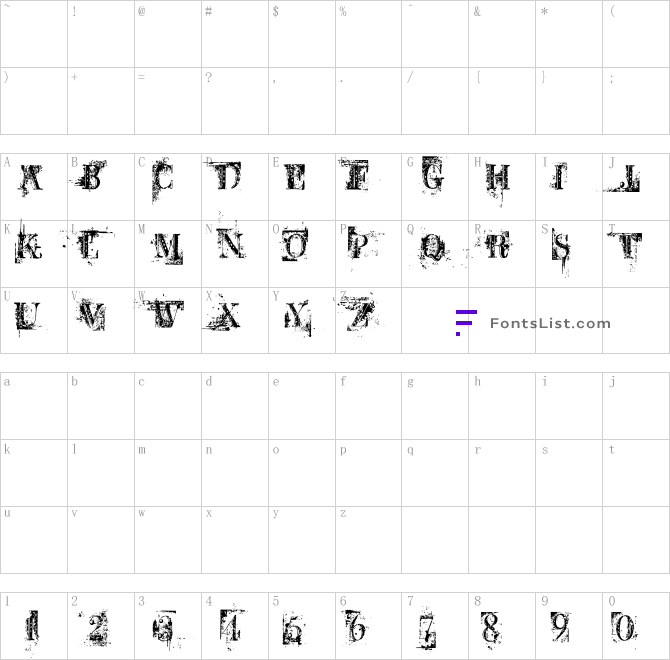
- Font Name:BB Petie Boy
- Full Name:BB Petie Boy Destroyed
BB-Petie-Boy-Destroyed.ttf is a very beautiful artistic font, BB-Petie-Boy-Destroyed.ttf is widely used in the design and printing of various books and pictures,BB-Petie-Boy-Destroyed.ttf has a strong visual impact,BB-Petie-Boy-Destroyed.ttf is a commonly used font in newspapers, magazines and books, and is used in posters, e-commerce Poster design, store design, logo design, font design and other fields.BB-Petie-Boy-Destroyed.